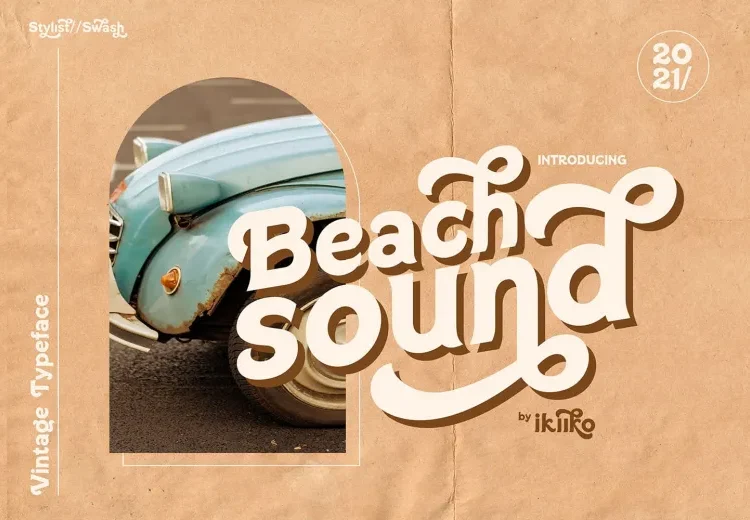
Beach Sound Font
Beach Sound is a striking font designed by ikiiko that masterfully blends retro and modern elements into its vintage-inspired design. With its unique style and distinctive swashes, Beach Sound adds a touch of character and nostalgia to any project.
• Vintage Appeal: This font captures the essence of retro design, making it perfect for projects with a 60s or 70s theme. It exudes a nostalgic charm that can bring a sense of history and warmth to your designs.
• Versatile Applications: Ideal for branding logos, food and beverage posters, cookie packaging, and any project requiring a vintage touch. Beach Sound can enhance a wide range of materials with its eye-catching style.
• Distinctive Style: The font’s swashes and unique design elements stand out, ensuring that your work is memorable and visually engaging.
• Creative Flexibility: Beach Sound offers the versatility needed for various design applications, from print to digital media, allowing you to infuse your projects with a retro flair.